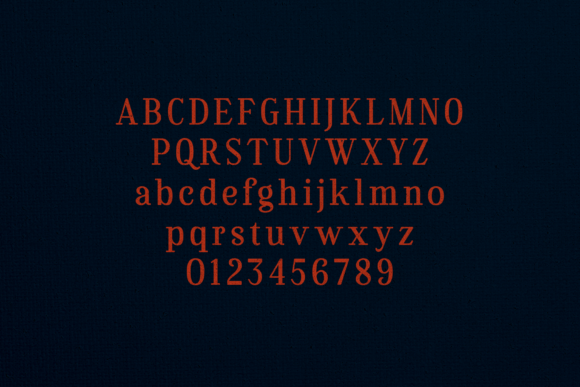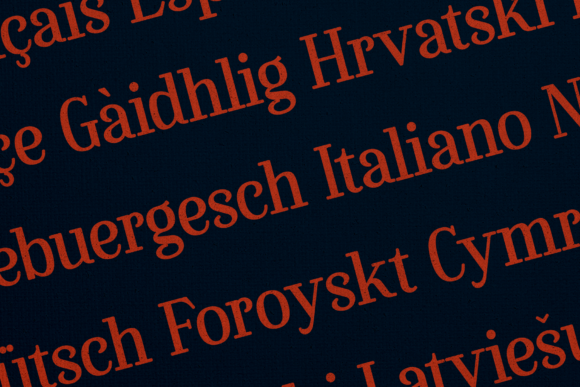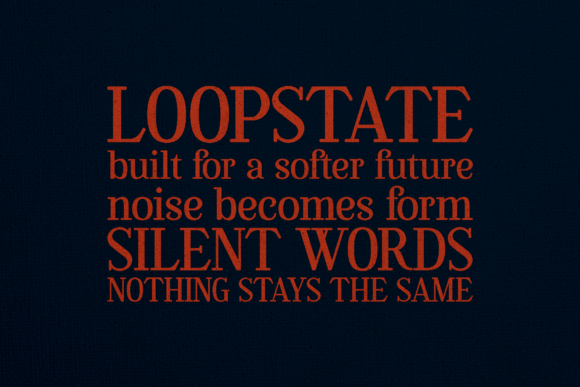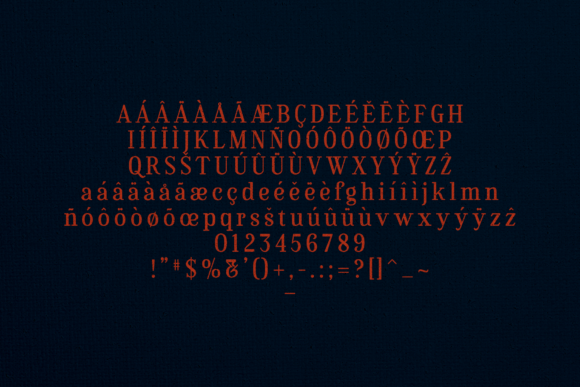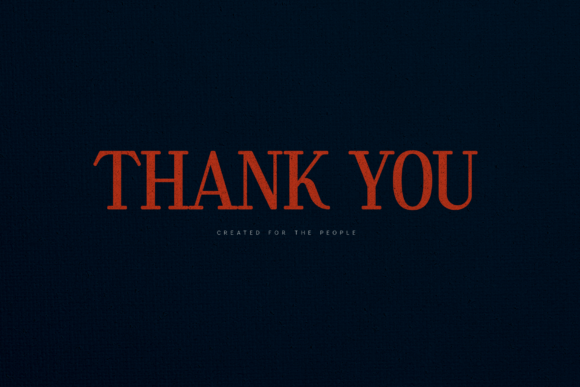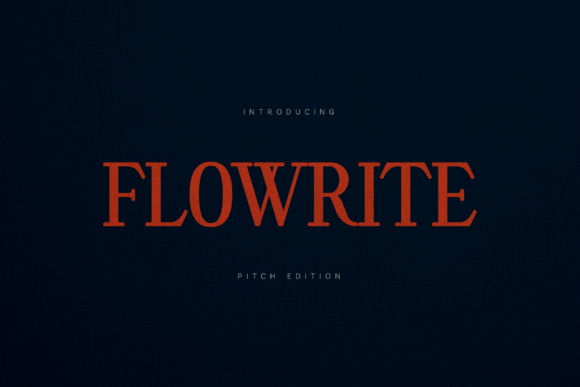
Introducing Flowrite Font: Elevate Your Designs with Elegance and Sophistication
In the world of typography, a well-crafted font can make all the difference in elevating your design projects from ordinary to extraordinary. Meet Flowrite – Pitch Edition, a modern serif typeface that embodies the perfect blend of classic elegance and contemporary sophistication. Designed with balanced proportions, elegant contrast, and refined letterforms, Flowrite is the ideal choice for designers and crafters seeking to add a touch of refinement to their work.
The Art of Typography: A Perfect Balance of Form and Function
Flowrite – Pitch Edition boasts a unique design that seamlessly merges classical serif structure with modern typographic aesthetics. This harmonious blend results in a sophisticated typeface that not only catches the eye but also enhances the overall visual appeal of any design project. Whether you’re working on branding systems, logo design, editorial layouts, magazine typography, posters, packaging design, visual identity systems, social media graphics, or modern design projects, Flowrite provides the perfect typographic solution.
Key Features of Flowrite Font
- Balanced Proportions: Flowrite’s carefully crafted letterforms ensure optimal legibility and readability, making it perfect for body text and headlines.
- Elegant Contrast: The font’s subtle contrast between thick and thin strokes adds a touch of sophistication, making it ideal for designs that require a high level of elegance.
- Refined Letterforms: Each letterform has been meticulously designed to provide a refined and polished appearance, perfect for designs that demand attention to detail.
- Versatility: Flowrite – Pitch Edition is a versatile typeface that can be used across various design projects, from branding and advertising to editorial and packaging design.
Why Choose Flowrite Font?
With the abundance of typefaces available, why should you choose Flowrite – Pitch Edition for your design projects? Here are a few compelling reasons:
- Unique Aesthetic: Flowrite’s distinctive blend of classic and modern elements sets it apart from other serif typefaces, ensuring your designs stand out from the crowd.
- Legibility: The font’s balanced proportions and elegant contrast ensure optimal legibility, making it perfect for both digital and print applications.
- Flexibility: Flowrite – Pitch Edition can be used across a wide range of design projects, from elegant editorial layouts to bold branding and advertising campaigns.
- Timeless Appeal: The font’s classic serif structure ensures it will remain relevant and stylish for years to come, making it a valuable addition to your typographic arsenal.
Design Applications for Flowrite Font
Flowrite – Pitch Edition is an incredibly versatile typeface, suitable for a wide range of design applications, including:
- Branding Systems: Create a lasting impression with Flowrite’s elegant and sophisticated typography.
- Logo Design: Use Flowrite to craft a unique and memorable logo that reflects your brand’s values and personality.
- Editorial Layouts: Elevate your editorial designs with Flowrite’s refined and polished appearance.
- Magazine Typography: Add a touch of elegance to your magazine designs with Flowrite’s sophisticated typography.
- Posters: Create eye-catching posters that demand attention with Flowrite’s bold and refined letterforms.
- Packaging Design: Use Flowrite to add a touch of sophistication to your packaging designs and make your products stand out on store shelves.
- Visual Identity Systems: Develop a cohesive visual identity with Flowrite’s versatile and elegant typography.
- Social Media Graphics: Elevate your social media graphics with Flowrite’s modern and refined appearance.
In conclusion, Flowrite – Pitch Edition is a modern serif typeface that offers a perfect blend of elegance, sophistication, and versatility. With its balanced proportions, elegant contrast, and refined letterforms, Flowrite is the ideal choice for designers and crafters seeking to elevate their design projects. Whether you’re working on branding systems, editorial layouts, or packaging design, Flowrite provides the perfect typographic solution. Add Flowrite to your typographic arsenal and experience the power of refined serif typography.